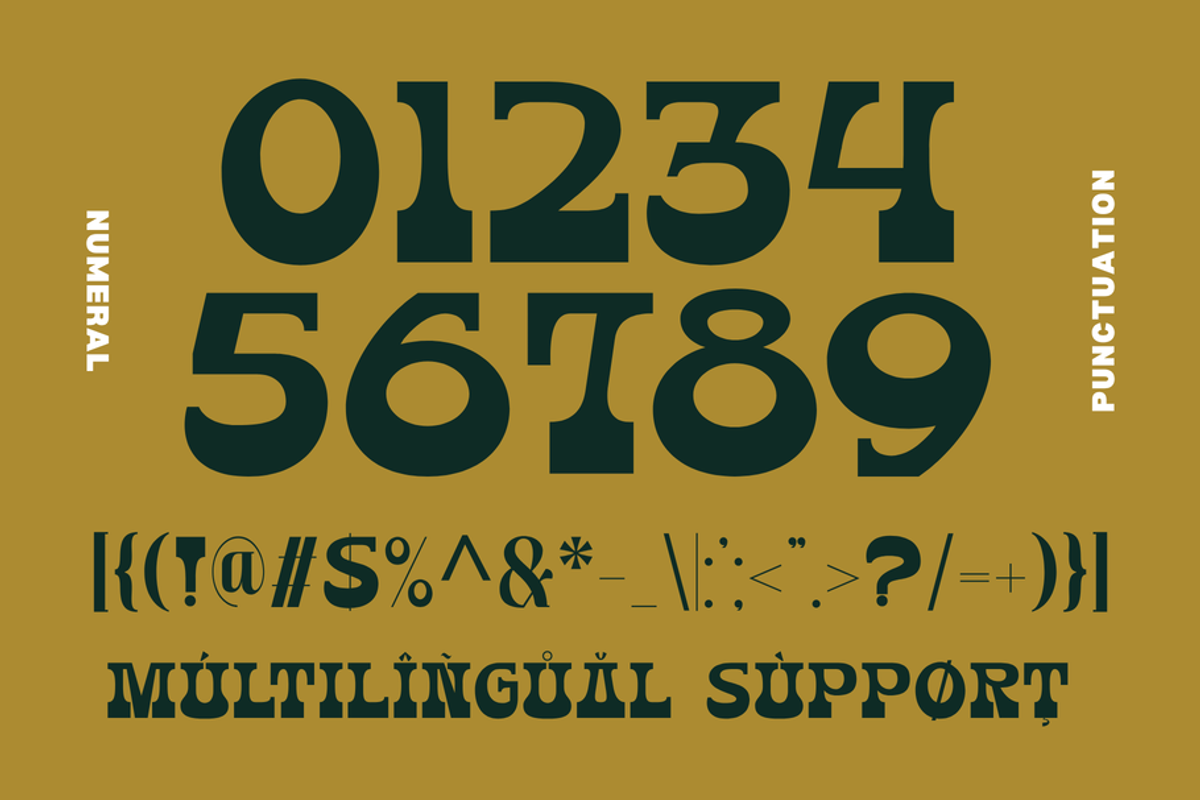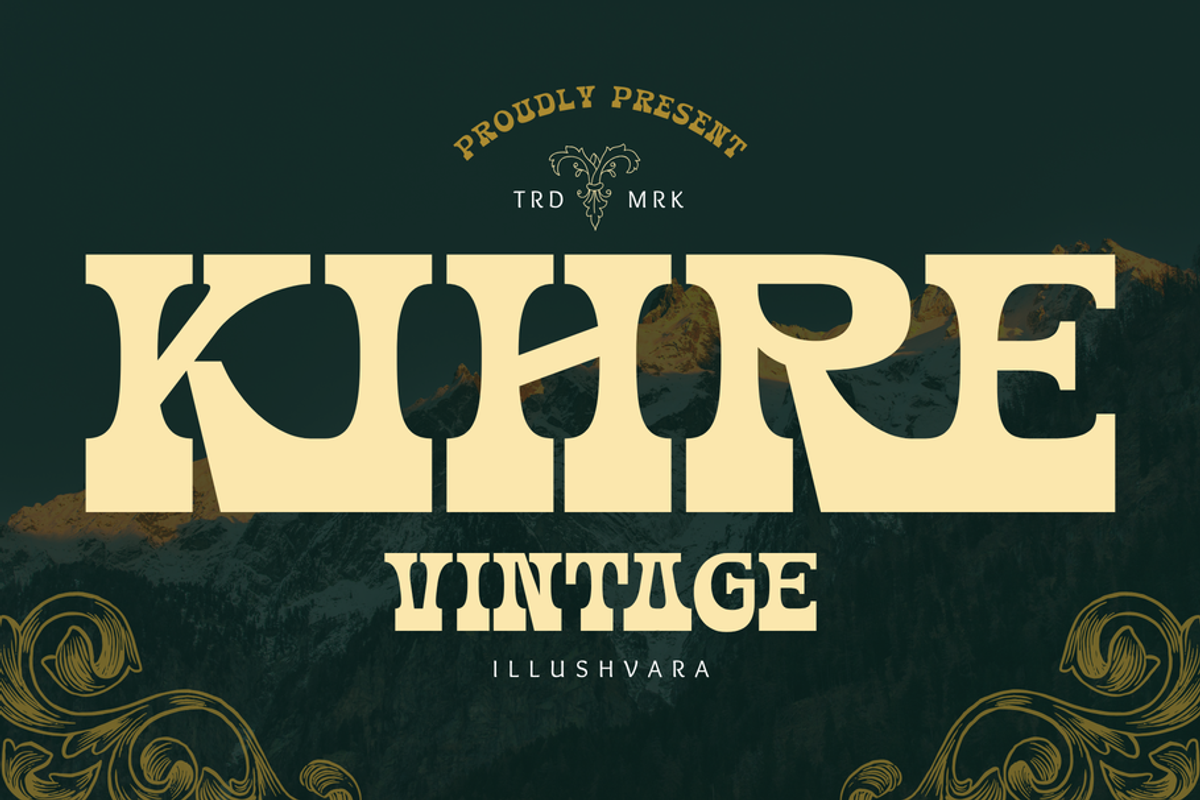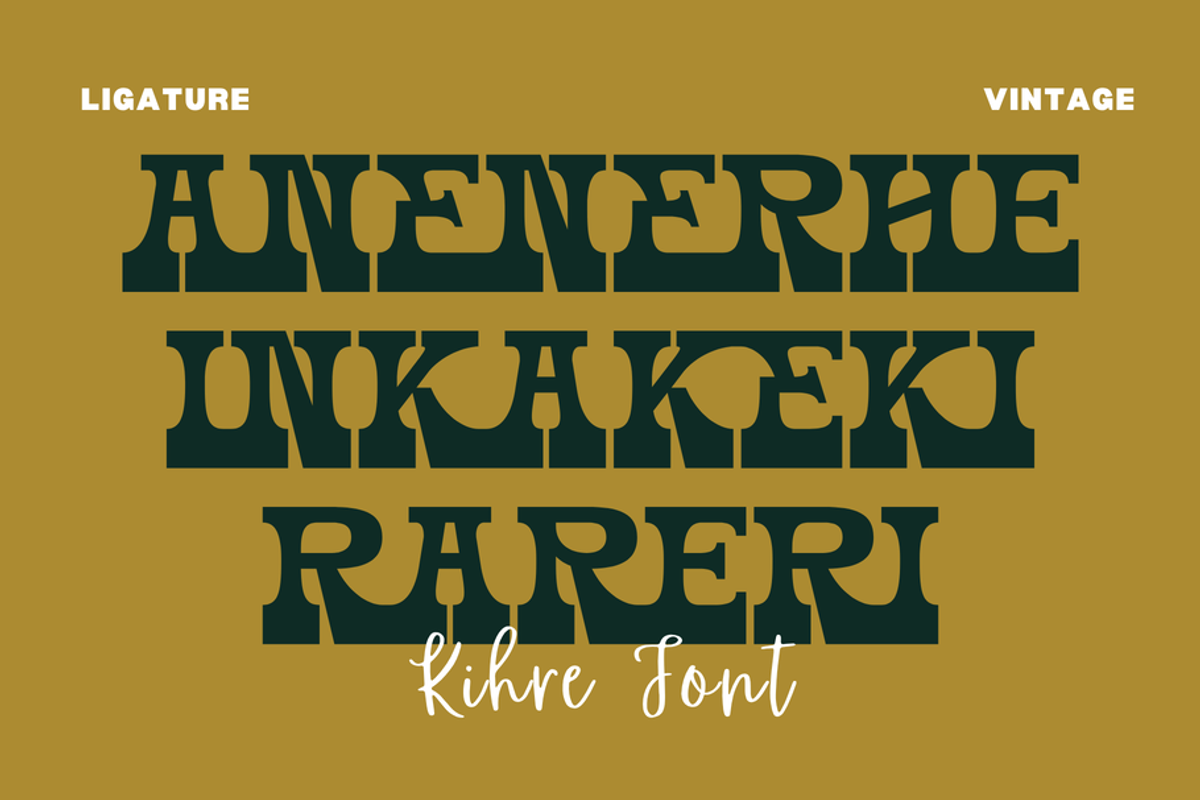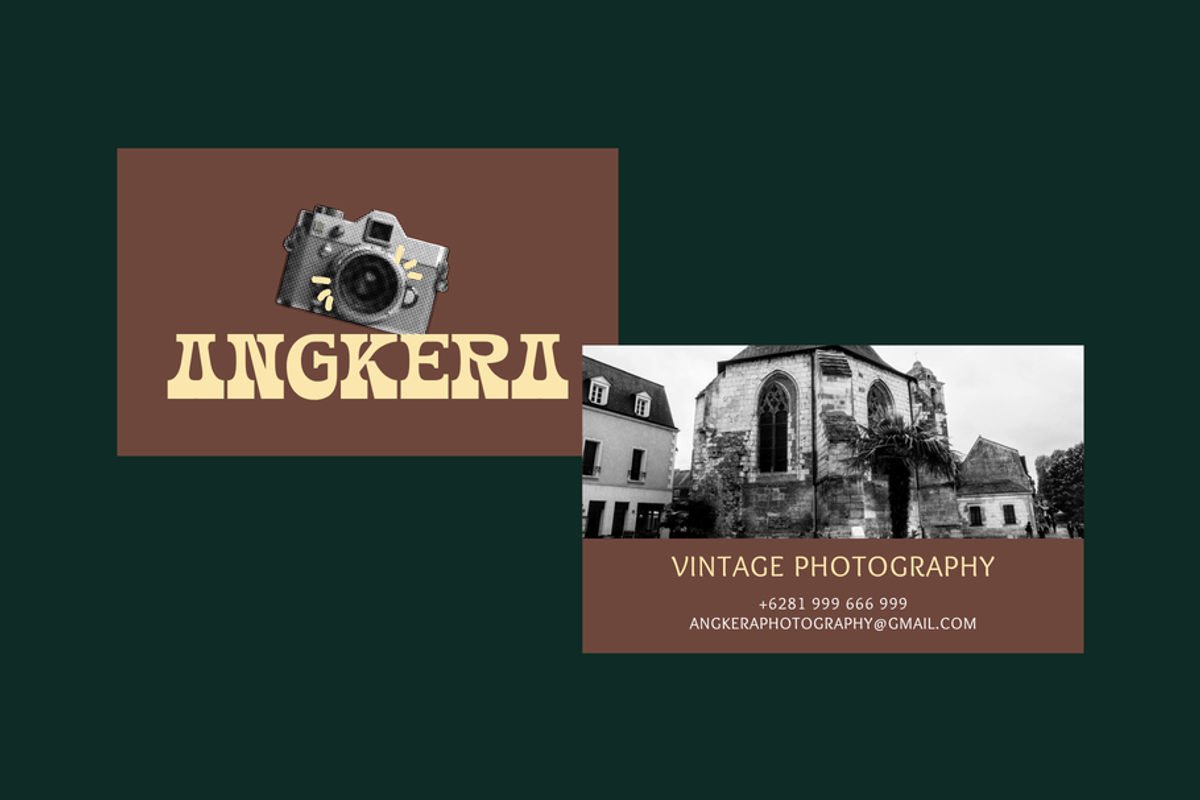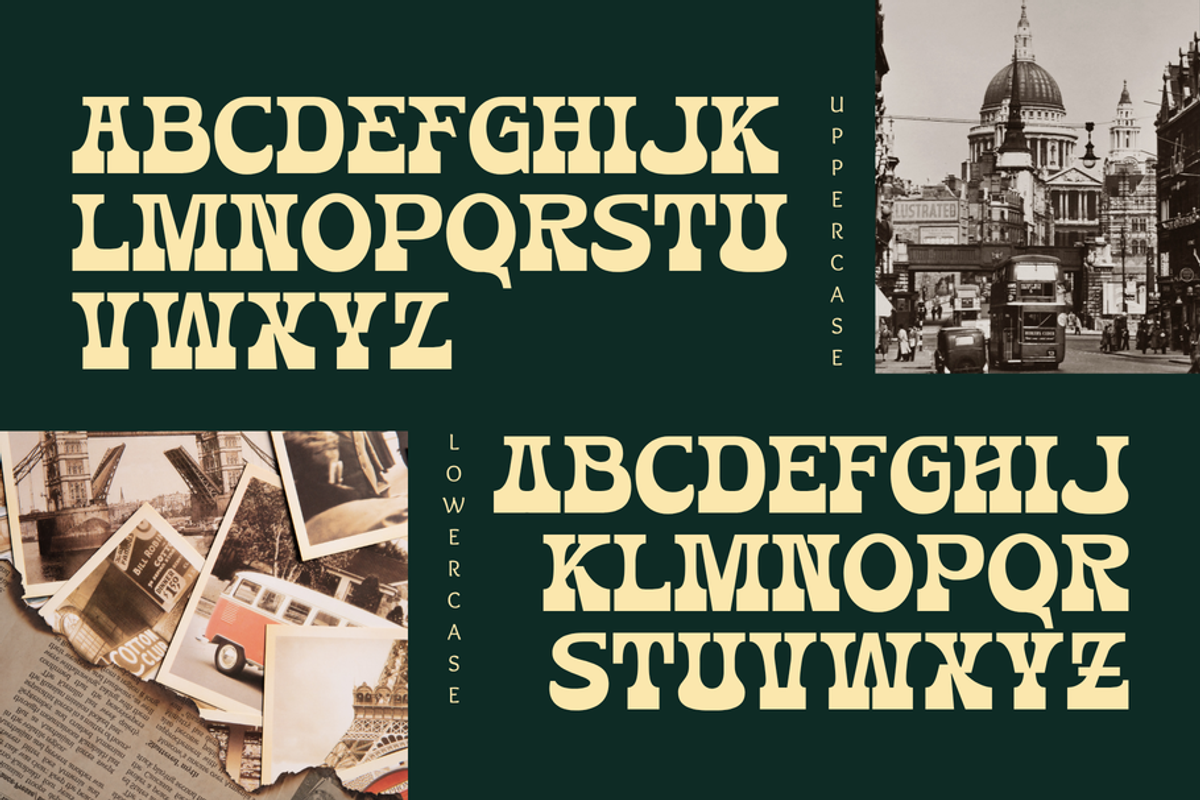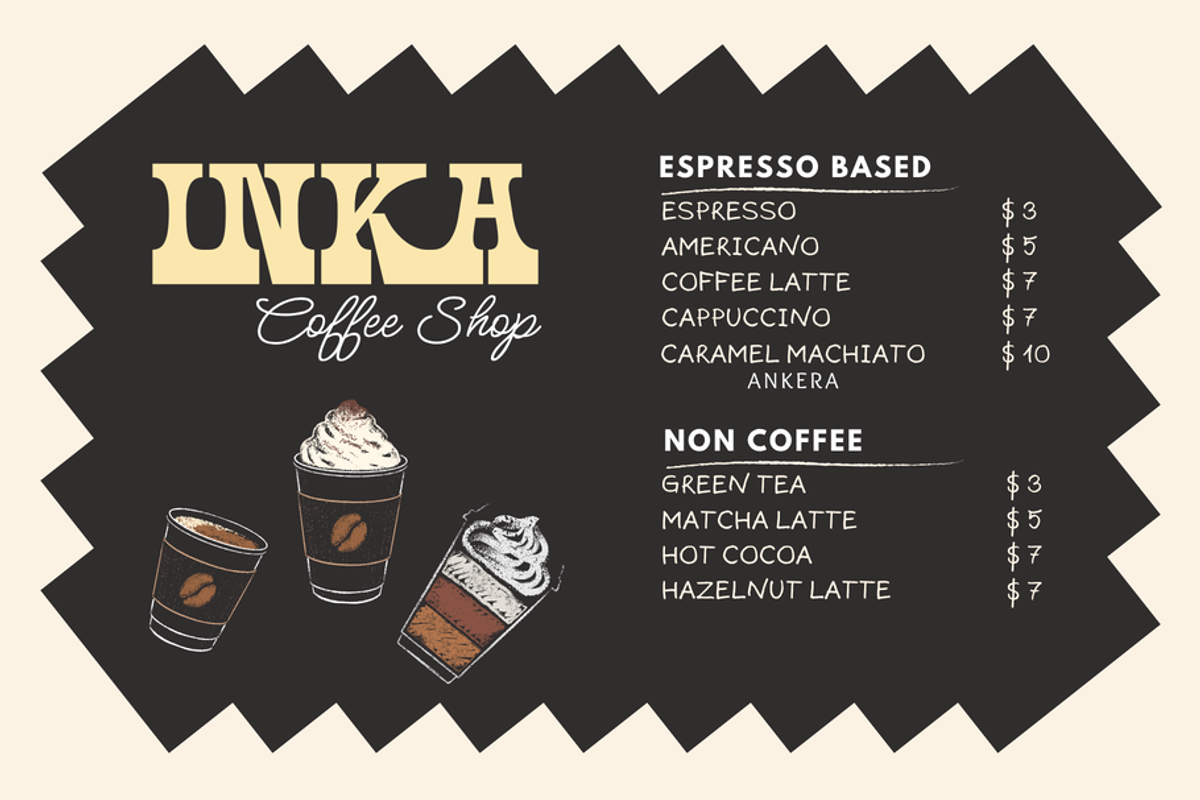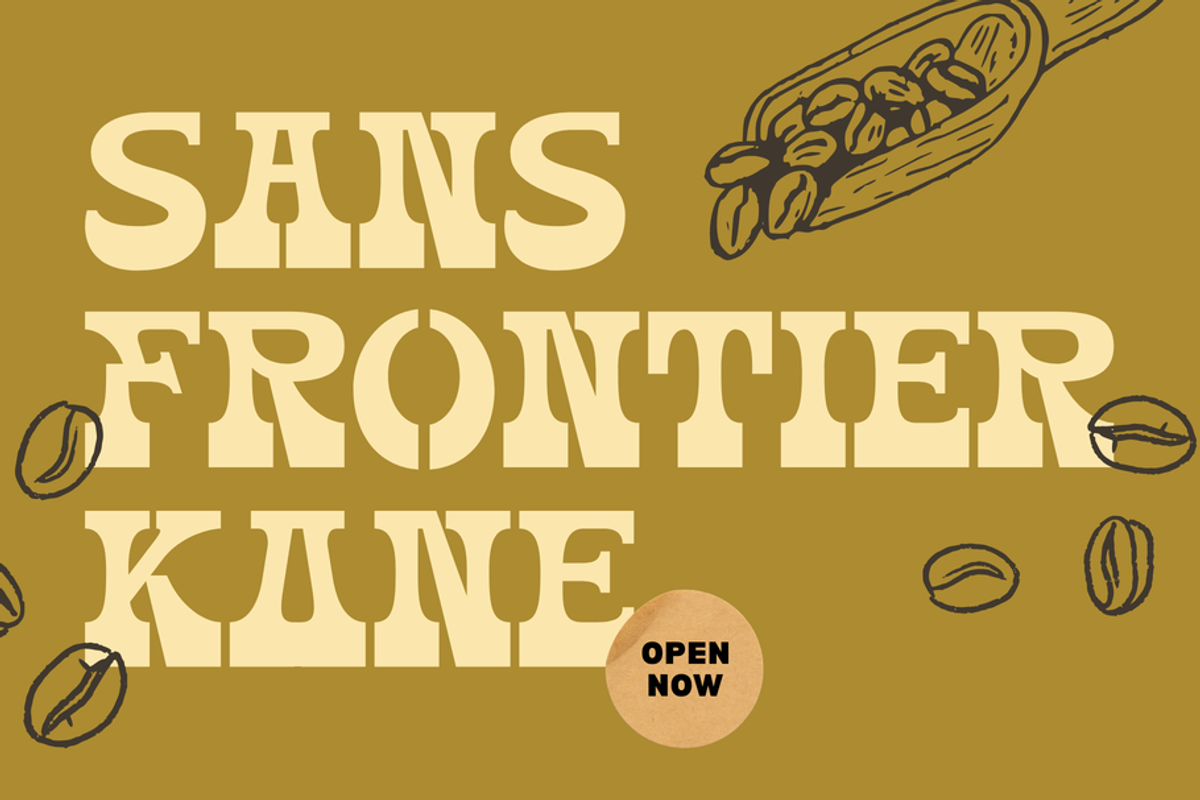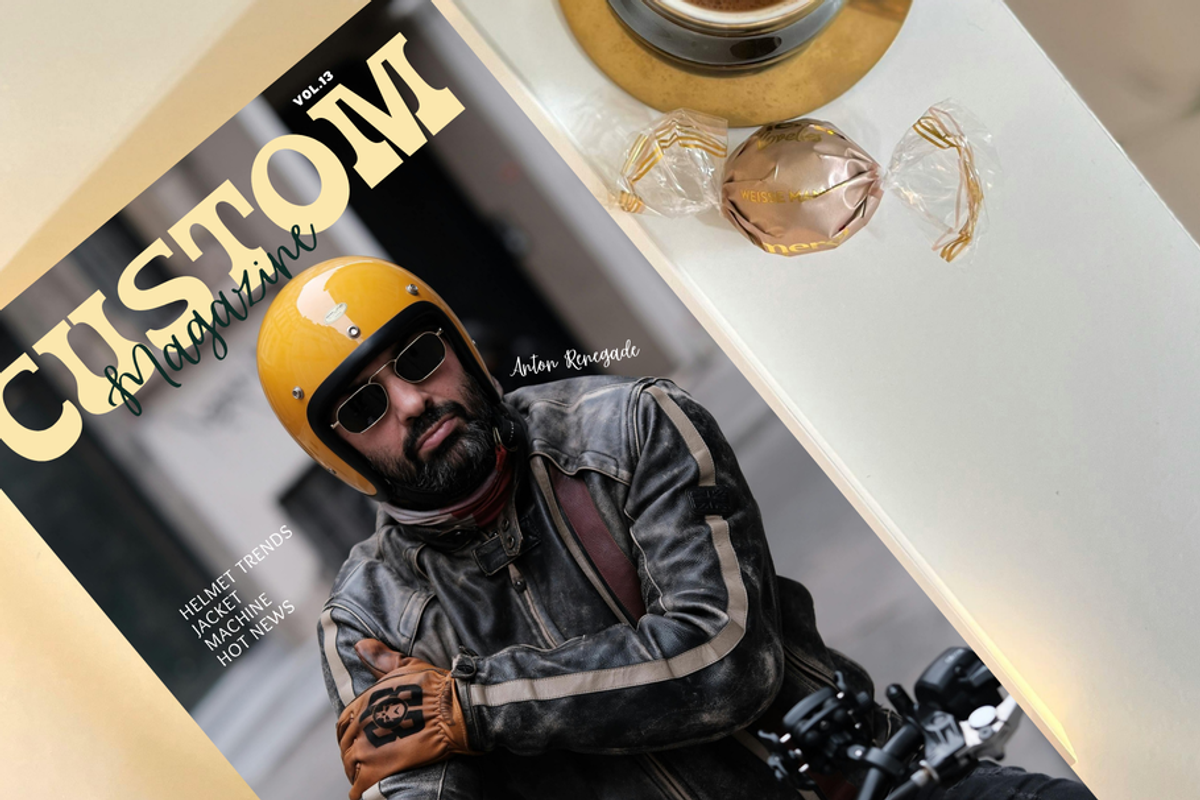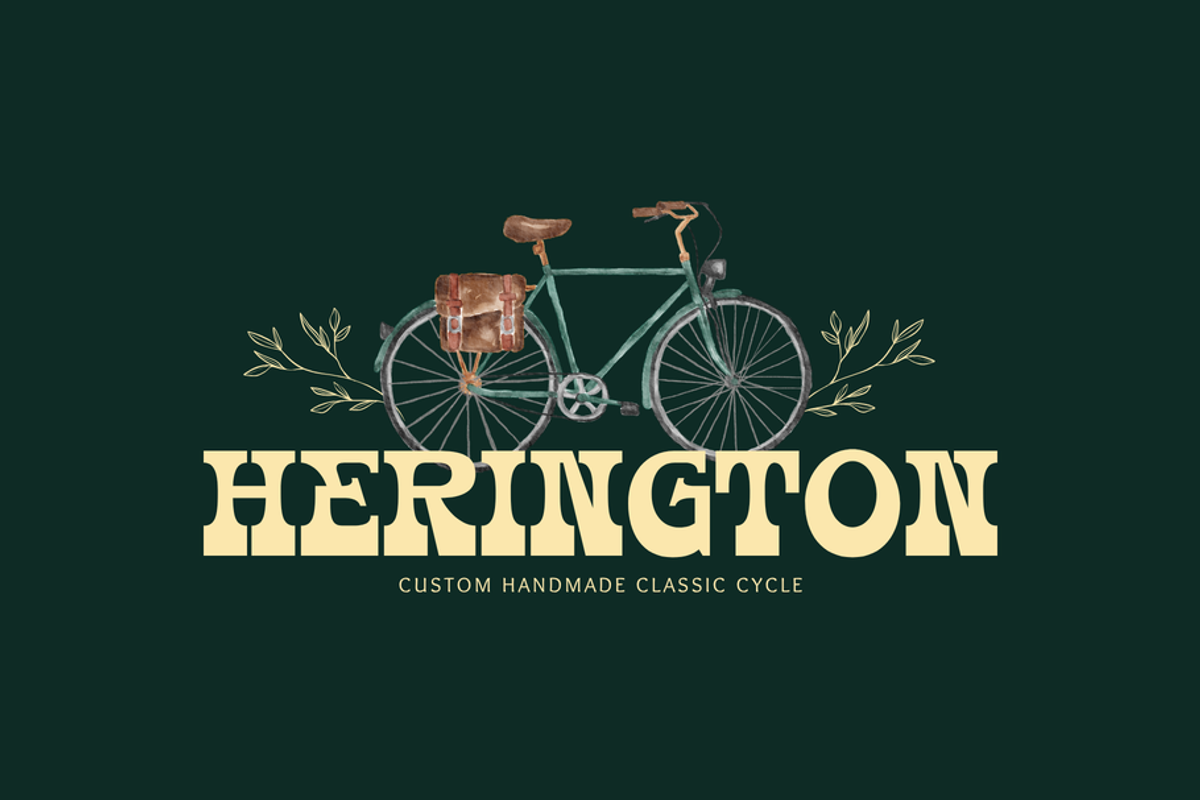
Kihre Vintage - Logo Branding Font
Say hello to Kihre Vintage
**Kihre **is a bold vintage display serif inspired by classic western typography, retro signage, and timeless craftsmanship. Designed with strong curves, chunky letterforms, and distinctive stencil-style cutouts, it delivers a rugged yet elegant personality. Perfect for logos, branding, coffee shops, restaurants, labels, motorcycle clubs, packaging, posters, editorial headlines, and nostalgic products. Kihre brings authentic vintage charm while remaining highly legible across print and digital projects. Whether you're creating rustic branding or bold retro designs, this typeface adds a powerful classic statement with unforgettable character.
FEATURES : Uppercase, Lowercase, Number, Punctuation, Multilingual, PUA Encode, Alternates, Ligatures, Opentype Character.